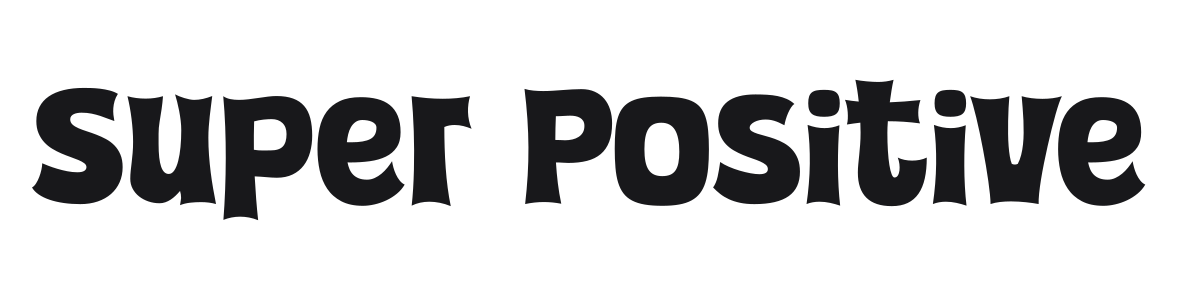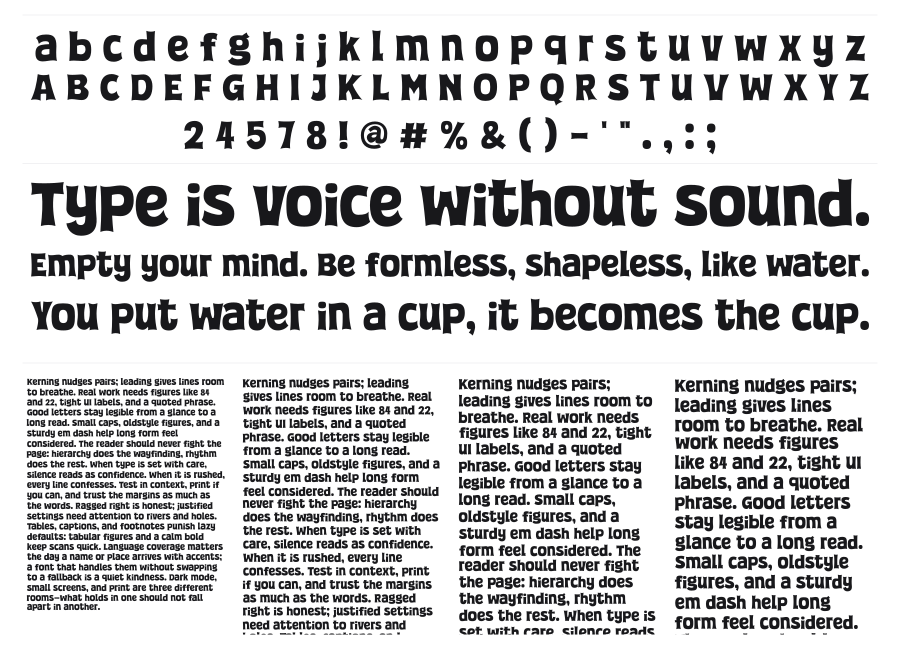
Super Positive
by fsuarez913
Super Positive is a bold groovy display font dripping with 1960s and 70s optimism. Its heavy, organic letters pinch and swell with a hand-crafted looseness that makes headlines feel alive and unapologetically fun. The wide proportions and rounded terminals demand large sizes and reward big, expressive layouts.